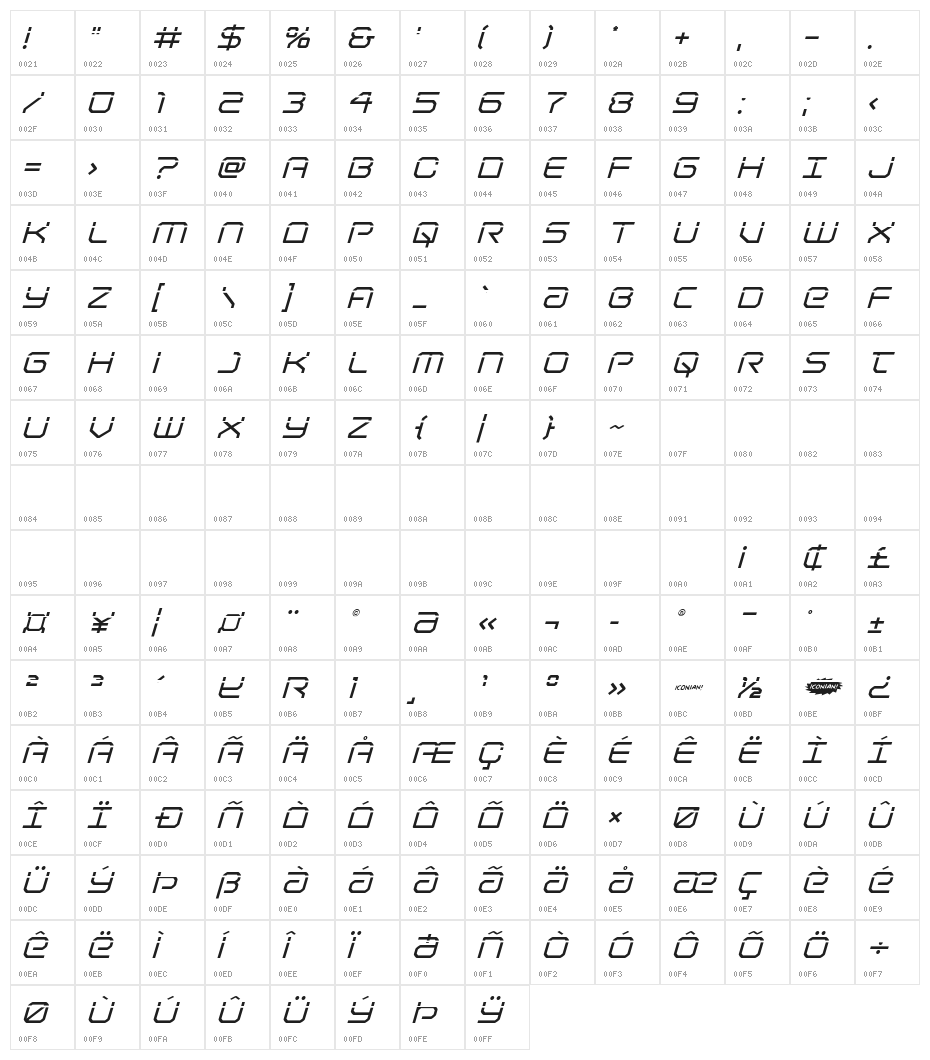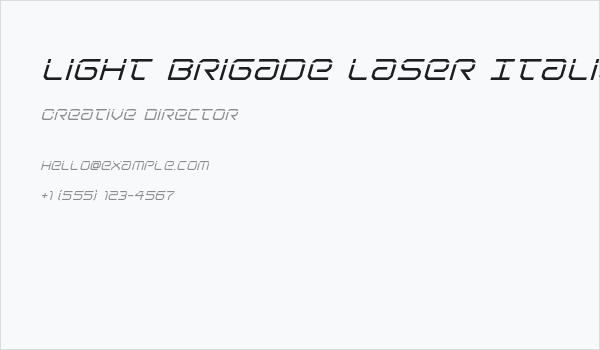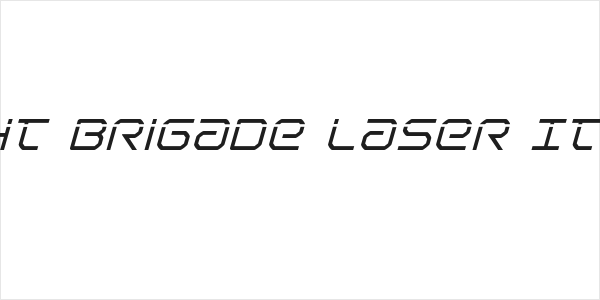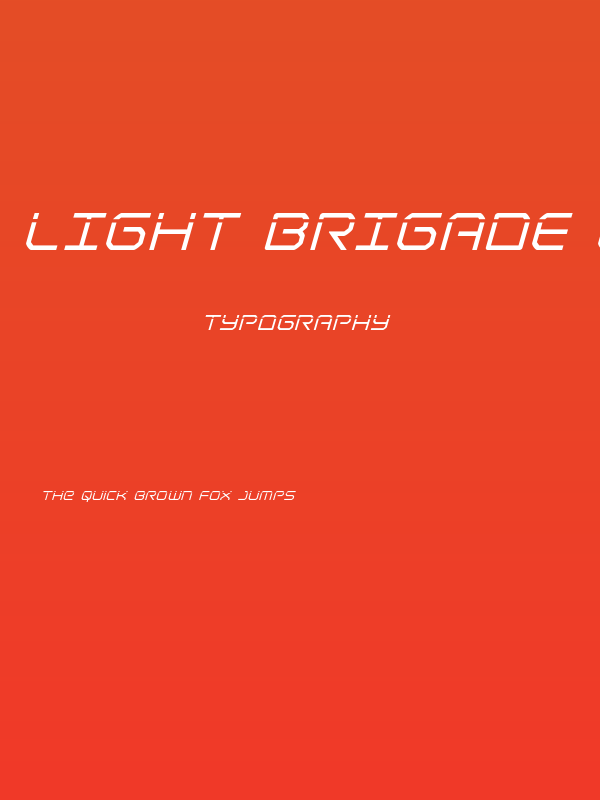
Light Brigade Laser Italic Font
Light Brigade Laser Italic Description
This font features a futuristic and sleek design with a distinct italic slant, giving it a dynamic and energetic appearance. The characters are constructed with clean, sharp lines and geometric shapes, reminiscent of laser-cut precision. The uppercase and lowercase letters maintain a consistent style, with a uniform height and width that enhances readability. The numerals and special characters are designed to match the overall aesthetic, ensuring a cohesive look across all text. This font's modern and technical vibe makes it suitable for projects that require a cutting-edge and innovative feel.
| Proposed Projects | Ideal for technology branding, sci-fi themed designs, video game interfaces, and futuristic posters. |